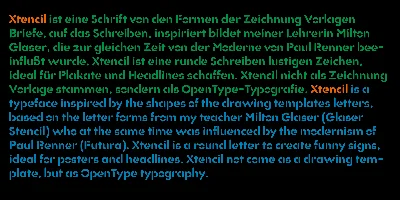
Xtencil lc Font
Xtencil lc Font is perfect for industrial facility signage, military operation graphics, shipping container branding, warehouse organization systems, construction site materials, and utilitarian marking applications.
Xtencil lc Font is exciting because it embodies industrial functionality and stencil precision, delivering a utilitarian typeface that captures the essence of efficient marking systems, practical identification, and the no-nonsense aesthetics of industrial design.
The Xtencil lc Font family includes functional variations: stencil cut letterforms, industrial spacing optimization, multiple weights, and practical character sets designed for maximum durability and readability in harsh industrial environments.
Mark with industrial precision using Xtencil lc Font, a functionally engineered typeface that brings stencil efficiency and industrial reliability to your most practical design projects. This utilitarian font excels in creating effective marking systems for manufacturing facilities, logistics companies, military organizations, and industrial contractors who require durable, readable typography that performs under demanding operational conditions. The precisely cut letterforms feature stencil construction and industrial proportions that ensure maximum legibility while maintaining practical functionality across all marking and identification applications. Perfect for equipment labeling, facility wayfinding, safety signage, and inventory management systems that need to provide clear information in challenging industrial environments, this font connects with professionals who prioritize function over decoration. Each character cuts with industrial precision, making every marking application feel like a professional identification system that demonstrates operational efficiency and attention to practical detail. Xtencil lc Font transforms routine industrial communications into reliable marking systems that ensure clear identification while maintaining the professional standards required for safe and efficient operations in demanding work environments where clarity and durability determine operational success.